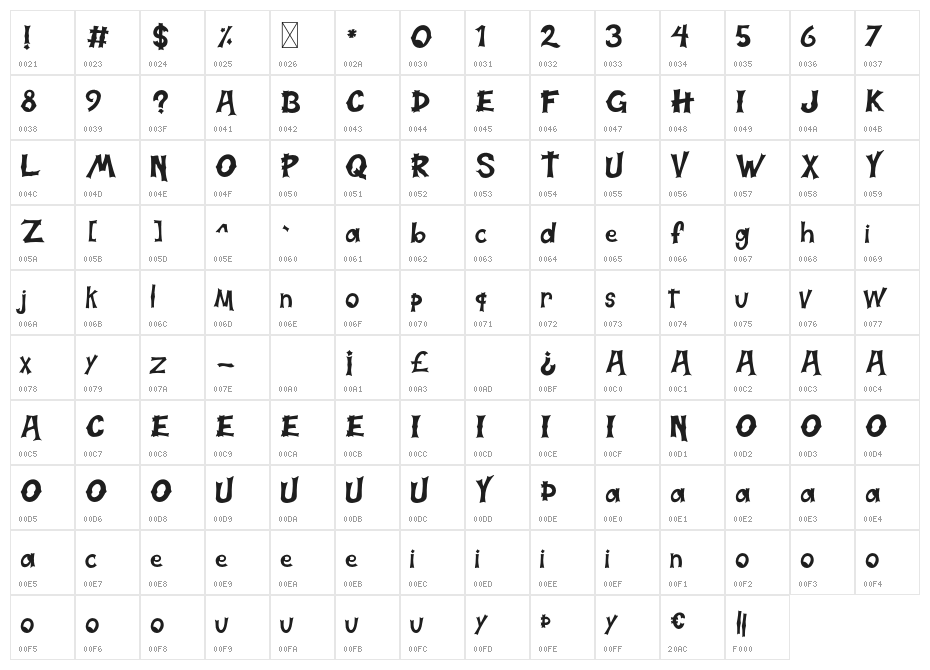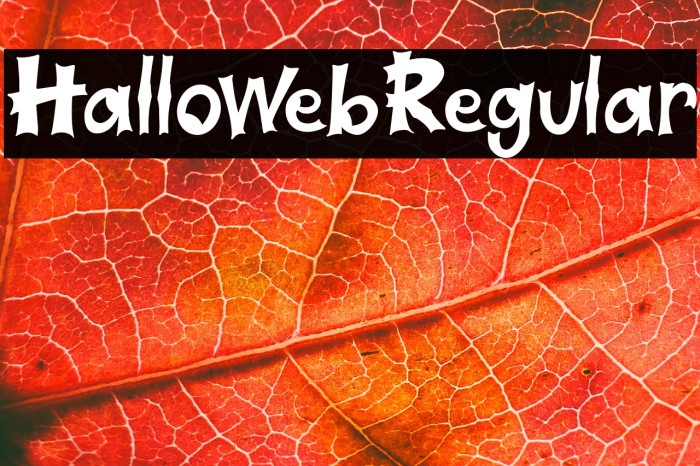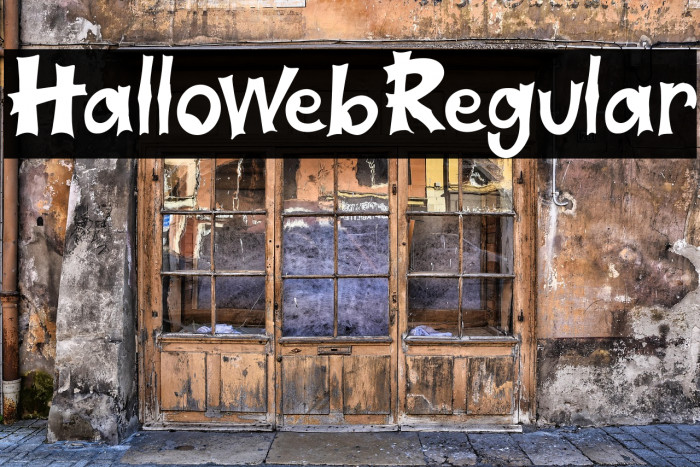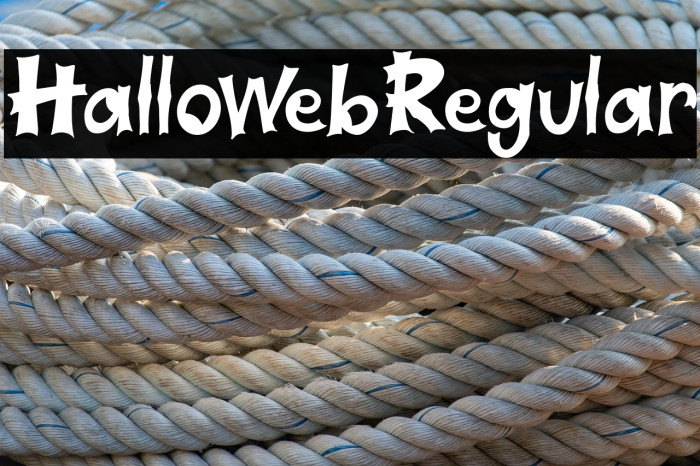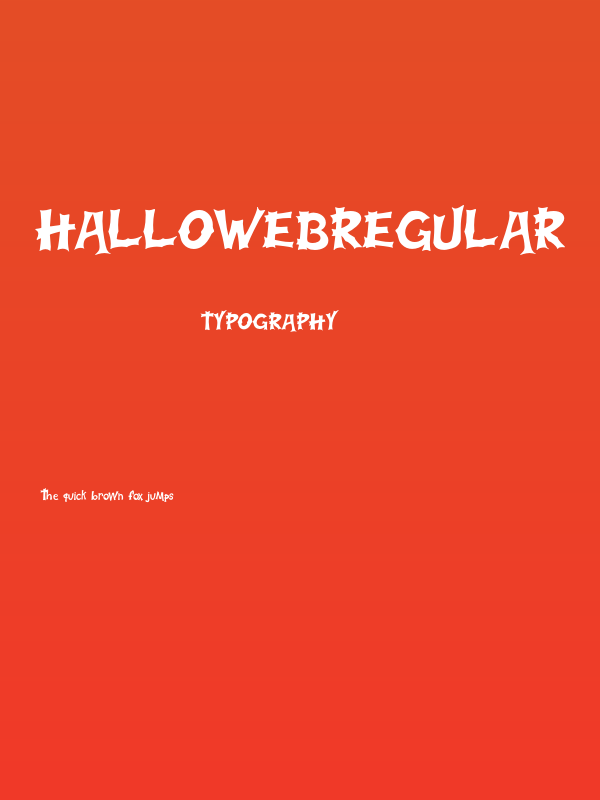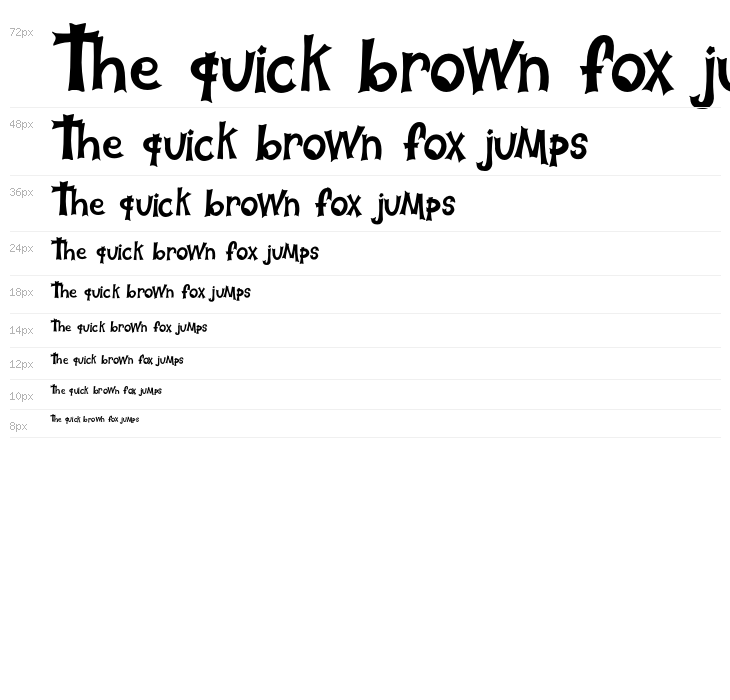
HallowebRegular Font
This font exudes a playful and spooky aesthetic, reminiscent of Halloween themes. The characters are bold and jagged, with uneven edges that give a hand-drawn appearance. The uppercase and lowercase letters maintain a consistent style, with exaggerated curves and sharp points. Numbers and special characters follow the same design principles, enhancing the font's cohesive look. This font is perfect for creating a whimsical yet eerie atmosphere, making it ideal for themed events or projects.
| Proposed Projects | Ideal for Halloween-themed posters, party invitations, and decorative banners. |